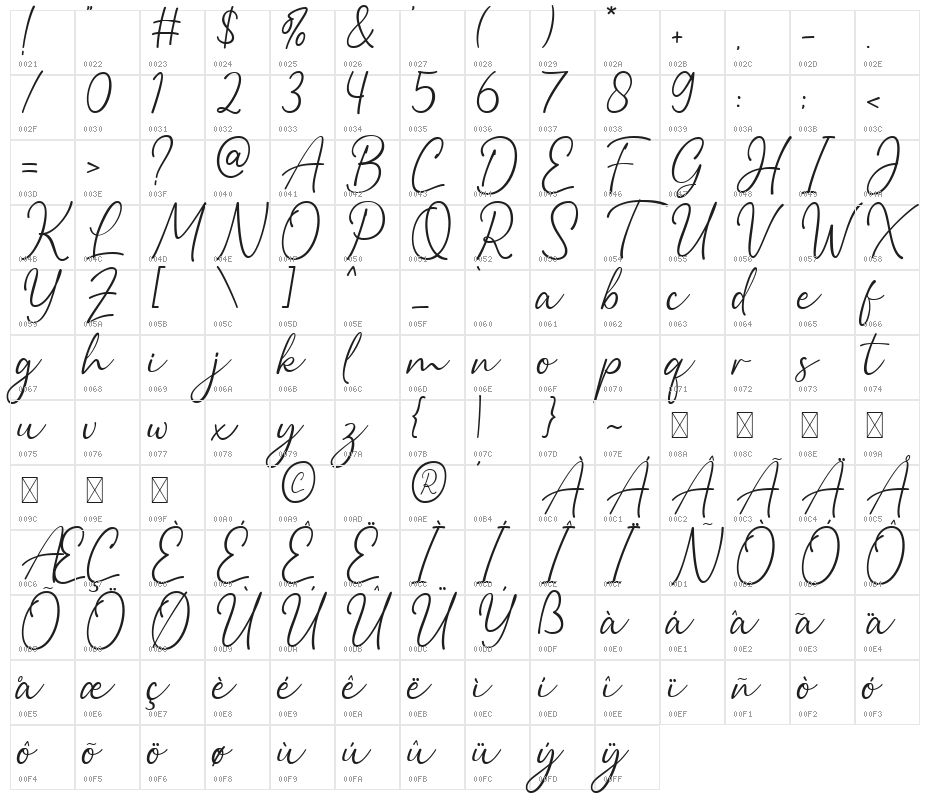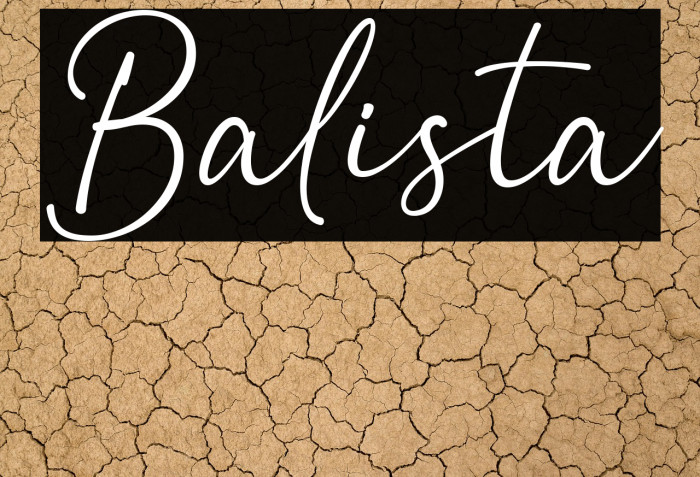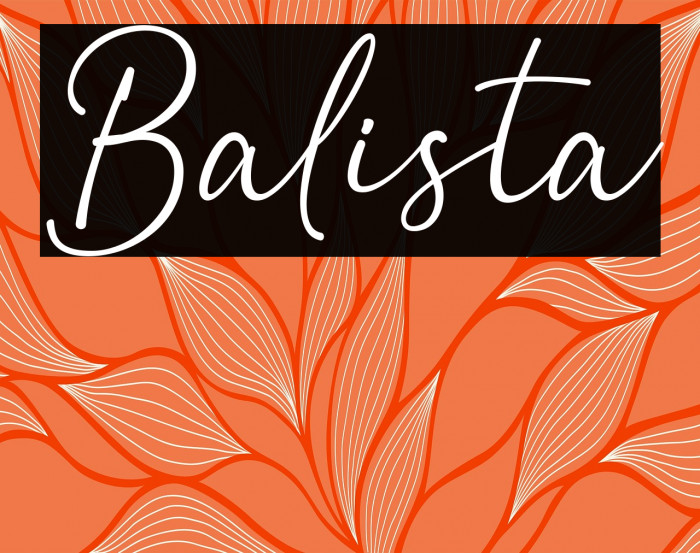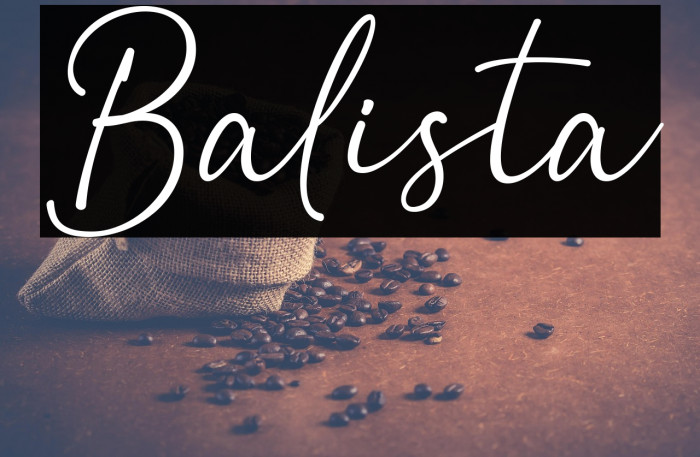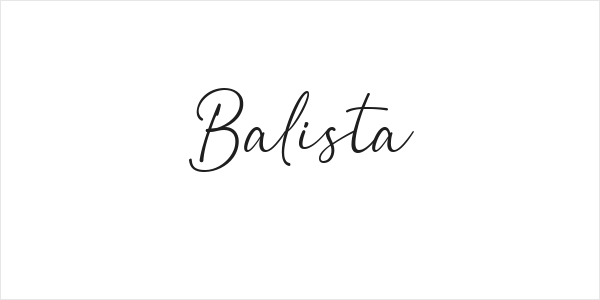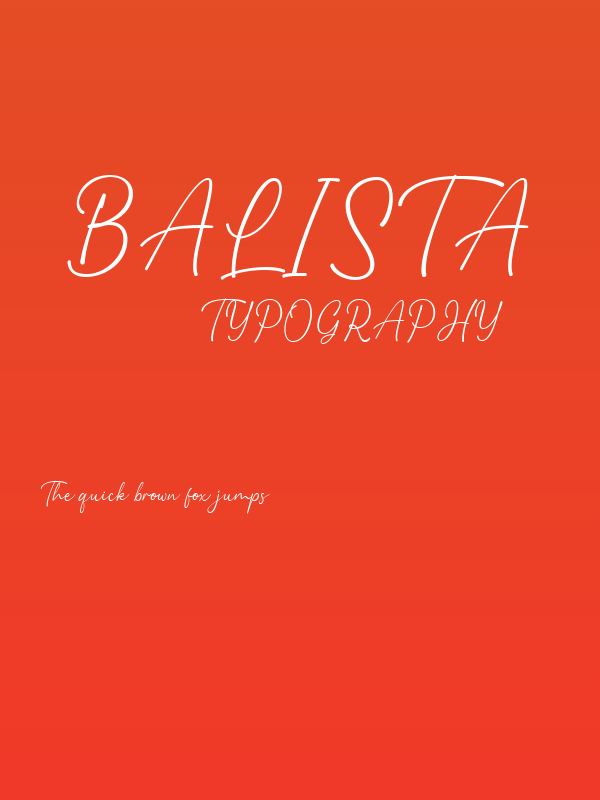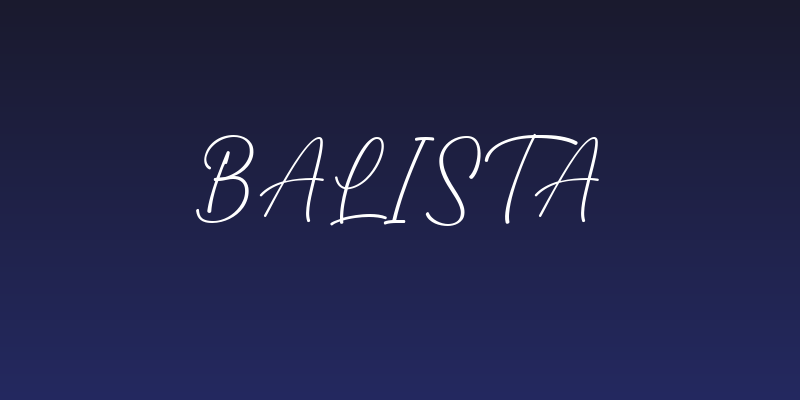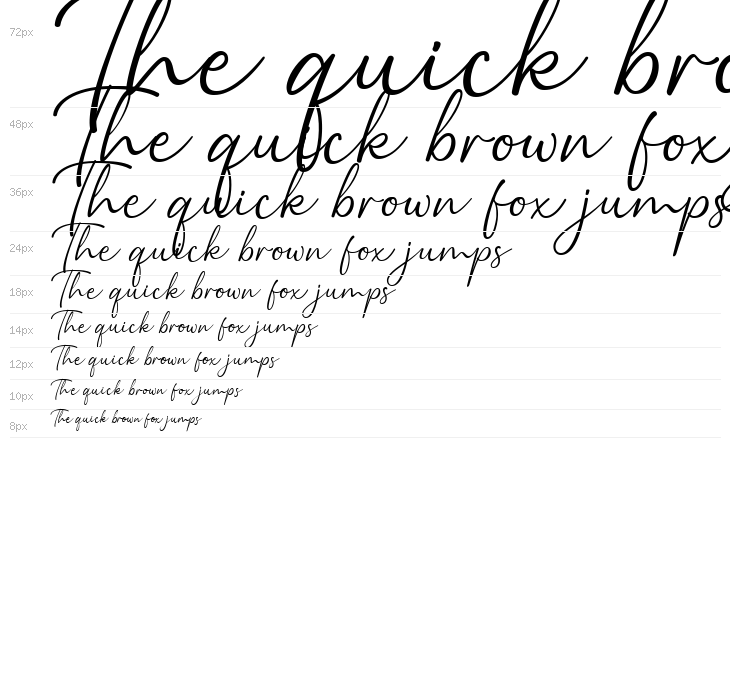
Balista Font
Balista Description
This font features a flowing, cursive style that exudes elegance and sophistication. The uppercase letters are tall and slender, with graceful loops and curves that give them a sense of fluidity. The lowercase letters maintain the same fluidity, with a slightly more relaxed and informal appearance. The numerals are consistent with the overall style, featuring smooth curves and a slightly playful touch. Special characters are seamlessly integrated, maintaining the font's cohesive look. This font is perfect for projects that require a personal, handwritten touch, such as invitations, greeting cards, or branding materials.
| Proposed Projects | Ideal for wedding invitations, personal branding, and elegant stationery. |